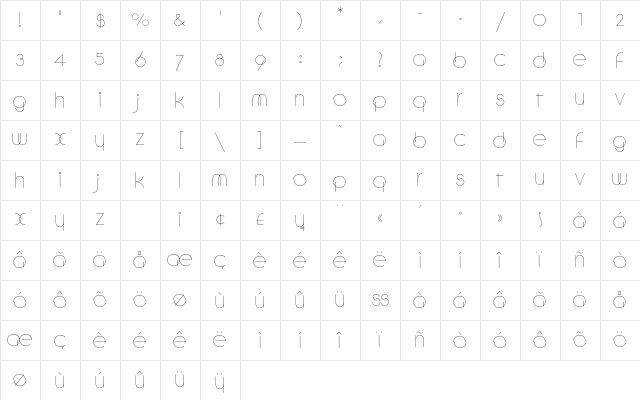
CirkulusEF Regular
Complete CirkulusEF Regular glyph index. Displaying only characters natively supported by CirkulusEF Regular font.
Design Context for CirkulusEF
CirkulusEF is a composed and adaptable typeface that performs quietly and consistently across a wide range of design contexts.